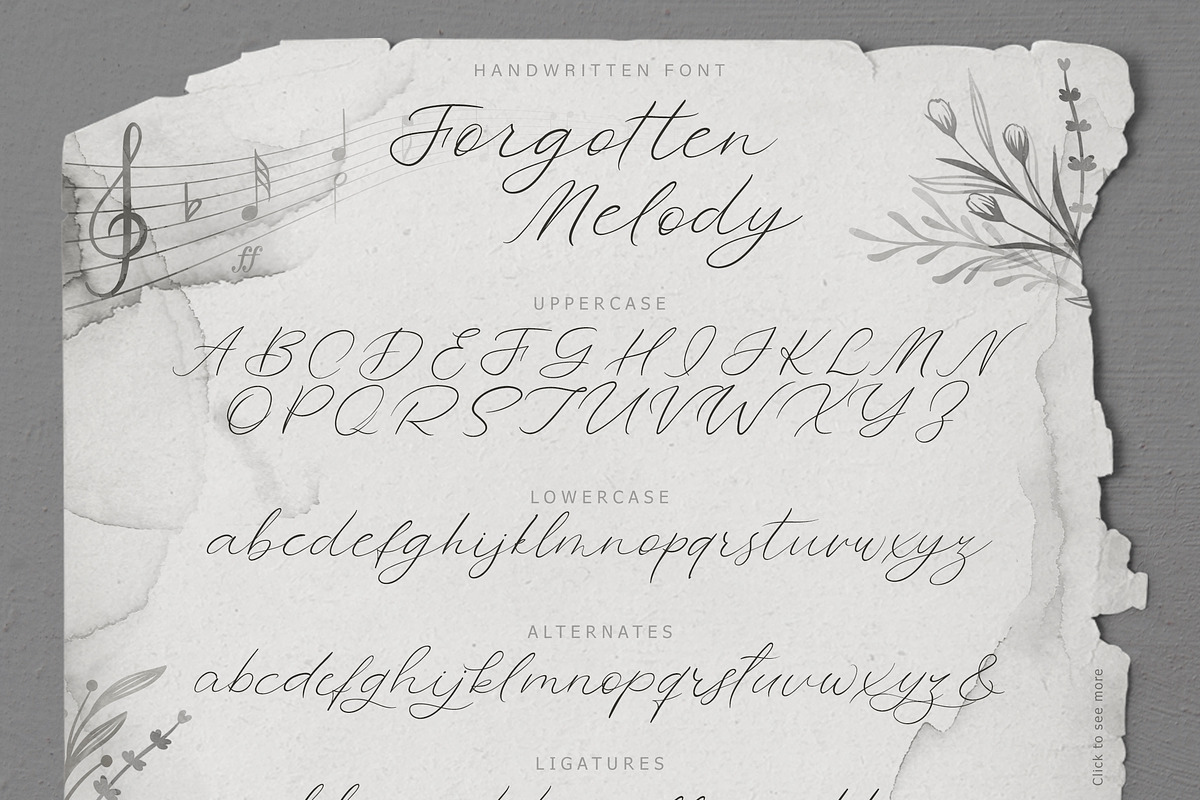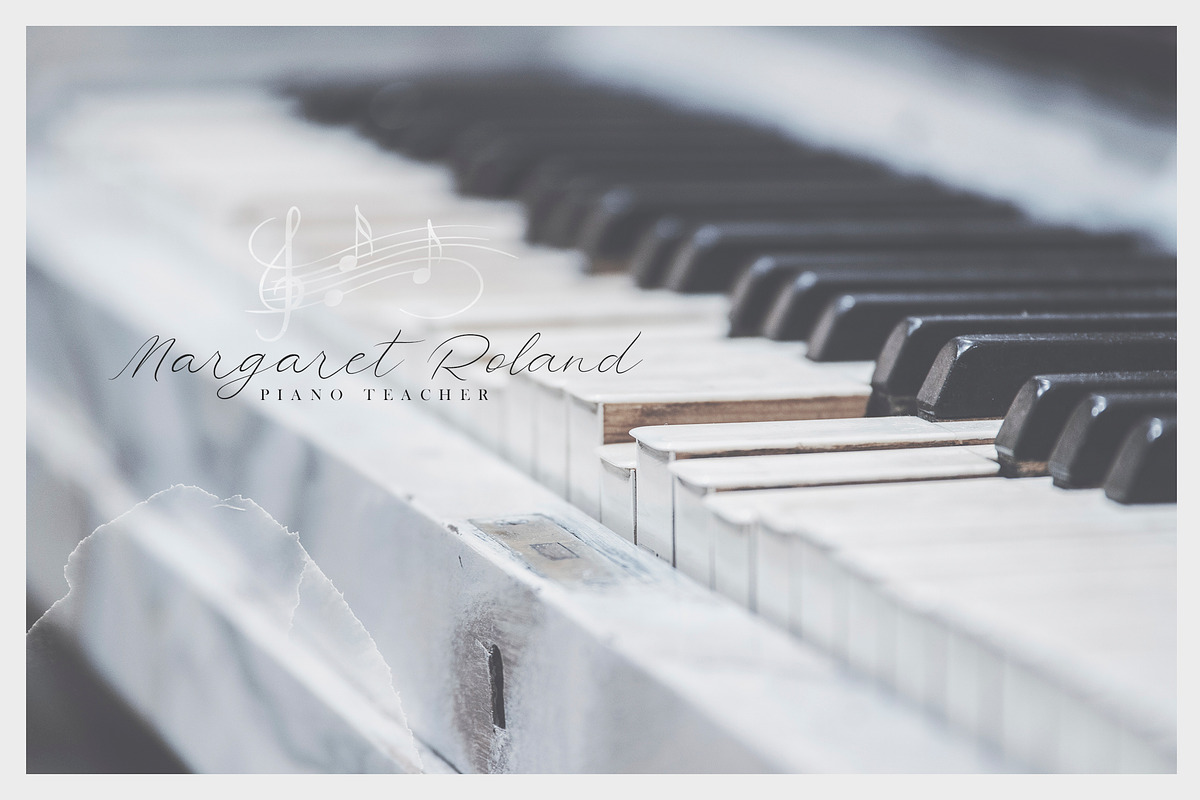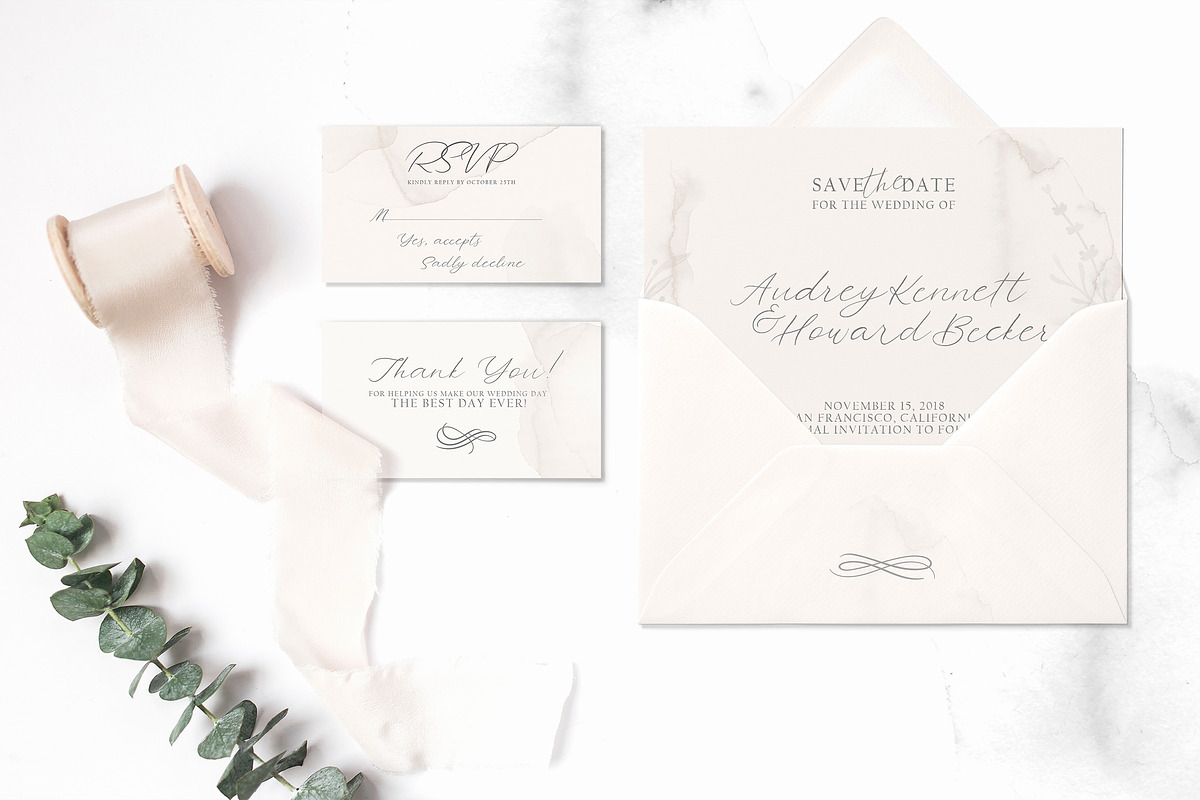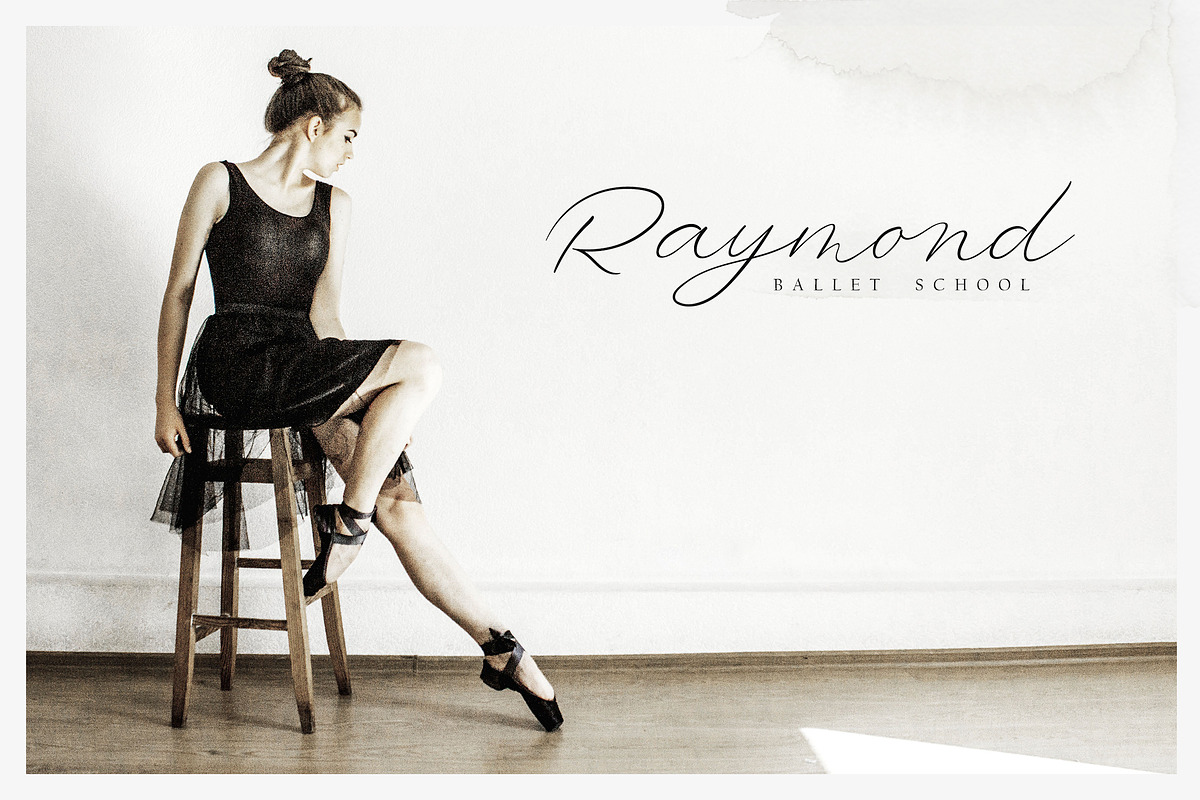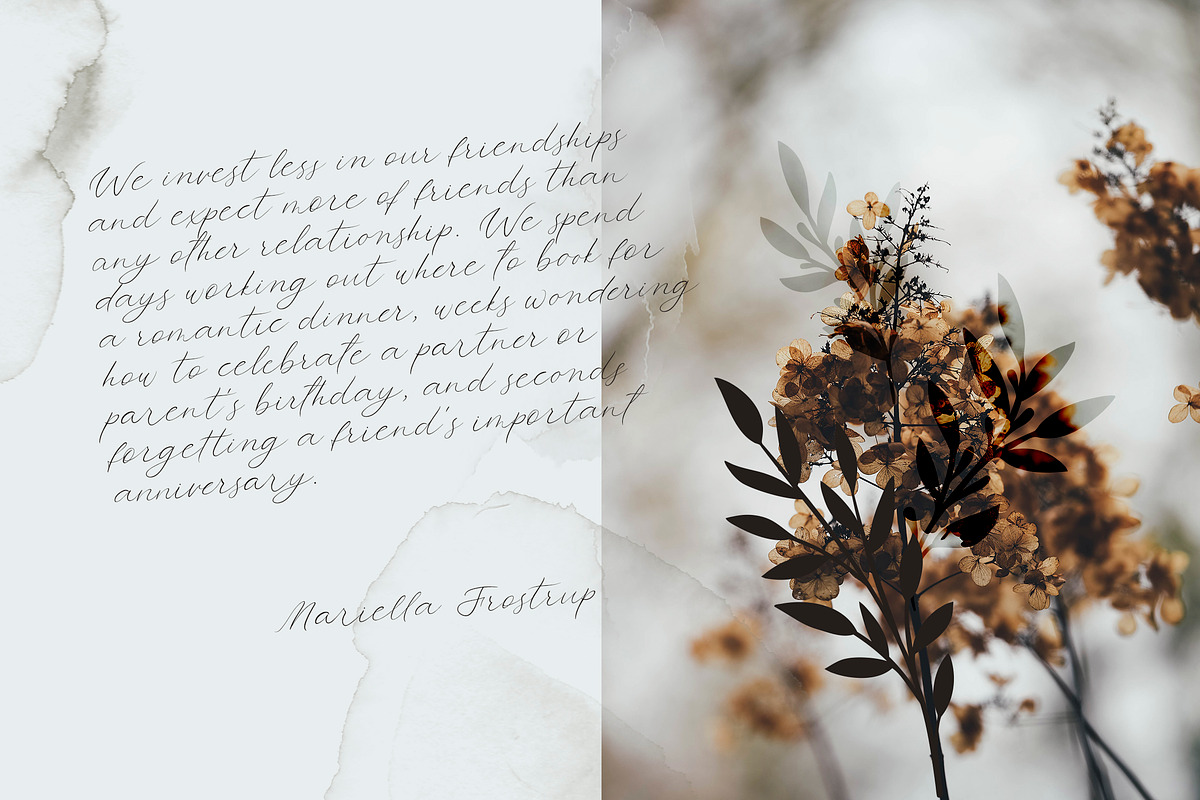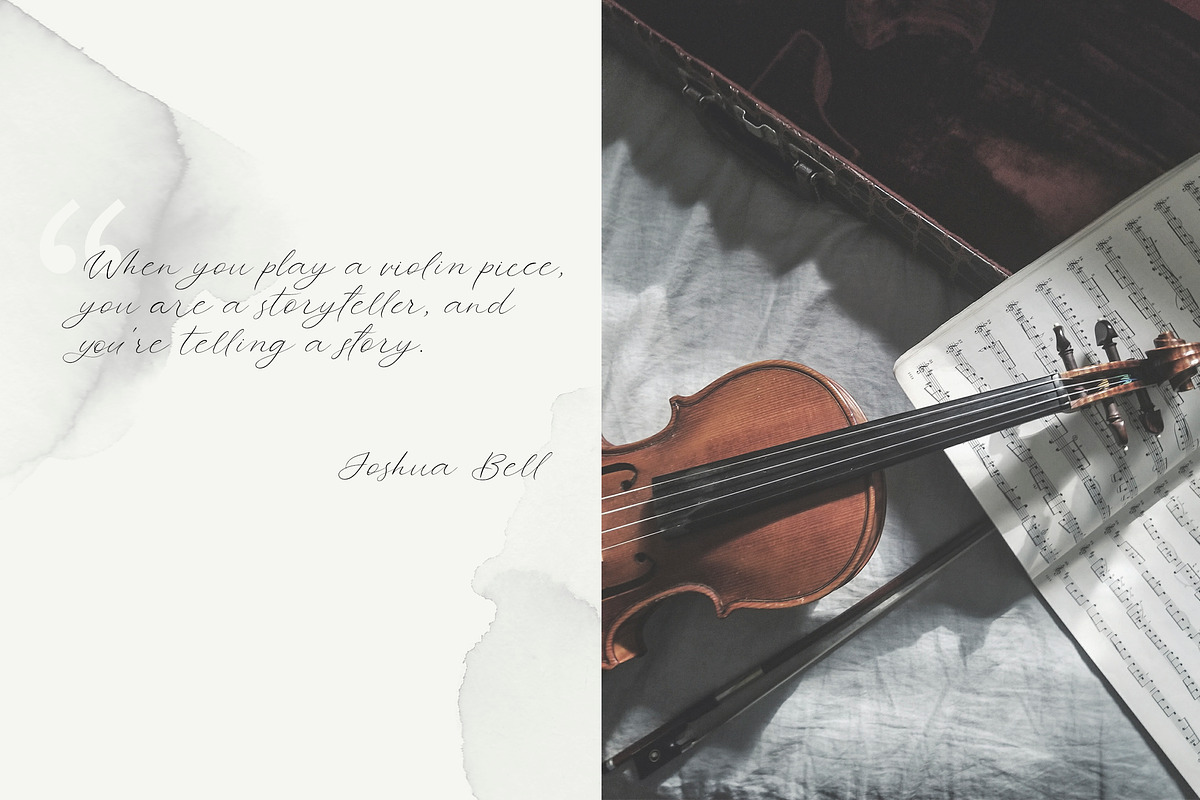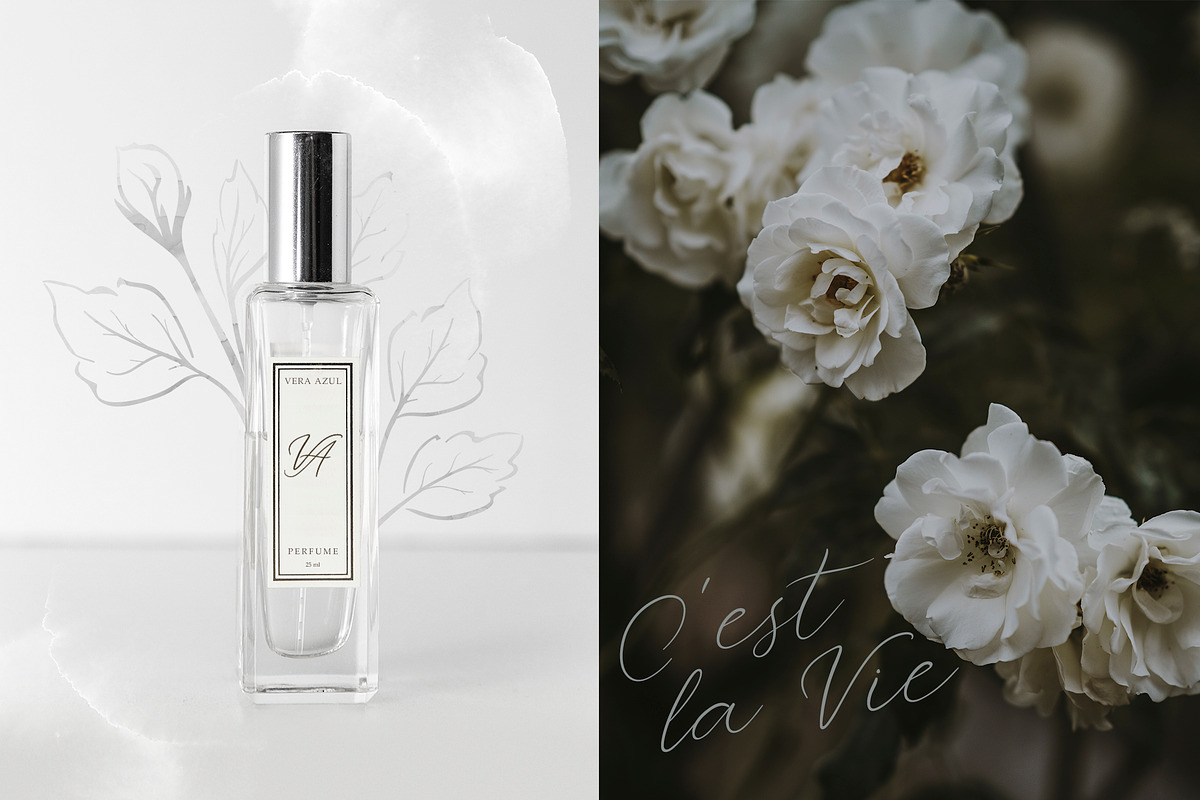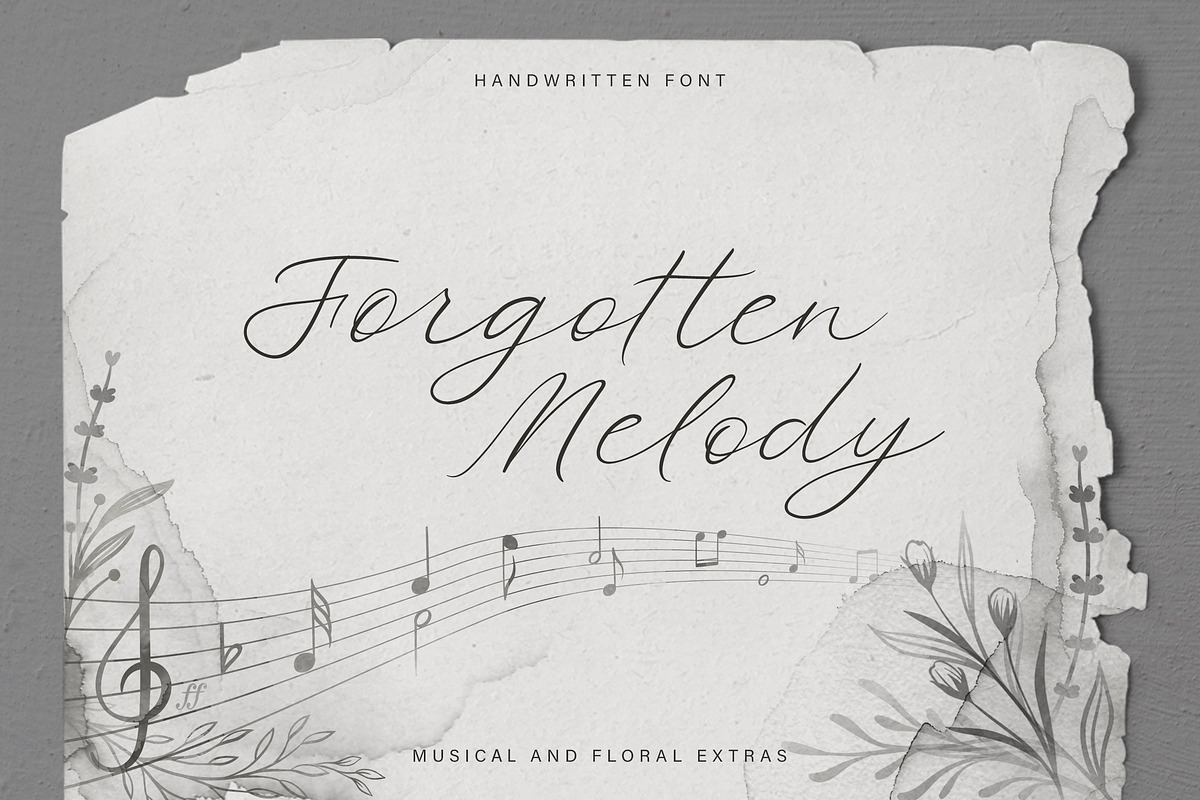
Forgotten Melody Font + EXTRAS
I’m pleased to introduce my new handwritten font Forgotten Melody.
Forgotten Melody comes in two styles: Regular and Extras. This font includes ligatures and full set of lowercase alternates to make your text as close to a natural handwritten script as possible.
Forgotten Melody Regular is an elegant, modern calligraphy, feminine font. Uppercase letters are ideal for your wedding monograms and logos. Use this font for wedding invitations, branding, packaging, magazines, letterpress address, social media, restaurant menus, greeting cards, headers and so on.
Forgotten Melody Extras is a symbol font (includes 62 hand drawn musical and floral elements). You can use these characters either separately or in combination with Forgotten Melody Regular (or any other fonts). The symbols are perfect for creating your own logo, greeting cards, photo overlays, scrapbooking, writing letters and just for fun :)
The font has extensive language support, it includes English and European latin-based languages: French, Italian, Spanish, Portuguese, German, Swedish, Norweigen, Danish, Finnish and other.